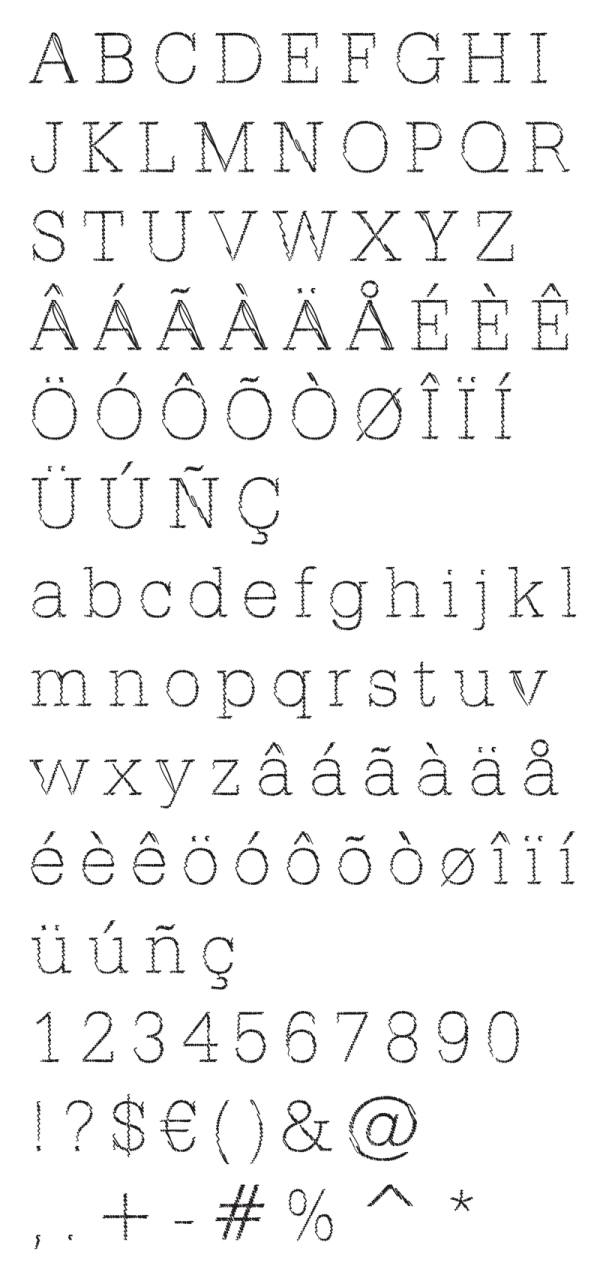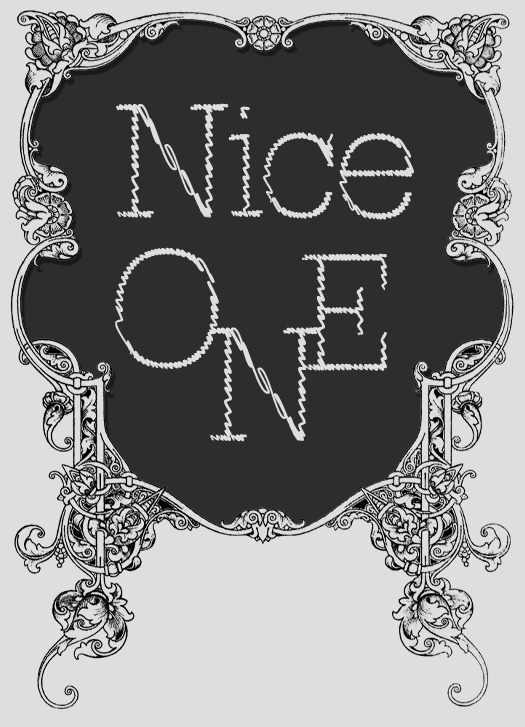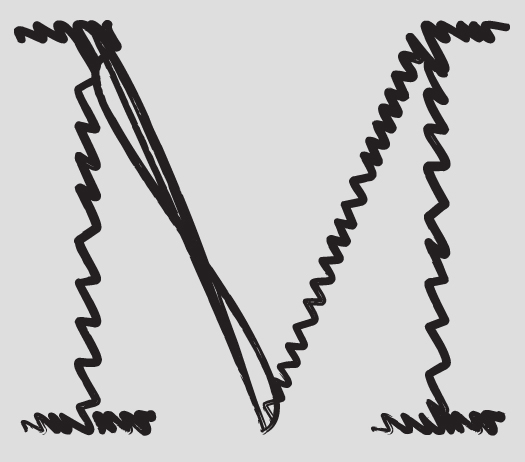
Vectorilly
Vectorilly font has those super-thin hand-made, sketched letters. We offer you this font in two main colours - black and white - and think that it could be used within every topic, because of being neutral, easily readable and recognisable.